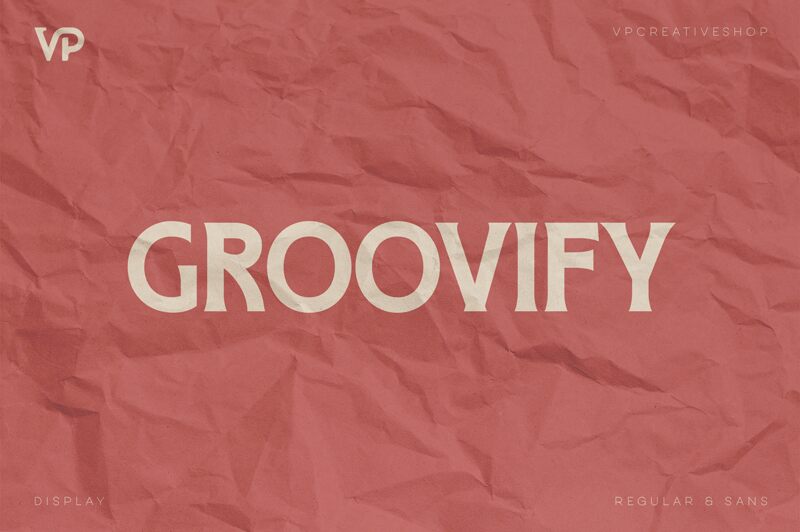
Groovify font is a free sans-serif font designed by VPcreativeshop, embodying a modern yet retro-inspired aesthetic. Made with smooth and geometric shapes, the characters feel visually light and minimalist, which makes them suitable for all kinds of projects. Accurate and balanced, each symbol is completed with great craftsmanship and attention to detail. With its sleek rounded shapes, the font can make a great choice for anyone who prefers to keep their designs minimal.
Whether printed or uploaded digitally, Groovify can brand your clothes, posters, and business cards, and decorate magazine covers, movie posters, and album covers. Artists can go in a different direction and use the font for complete artwork with typographic designs.